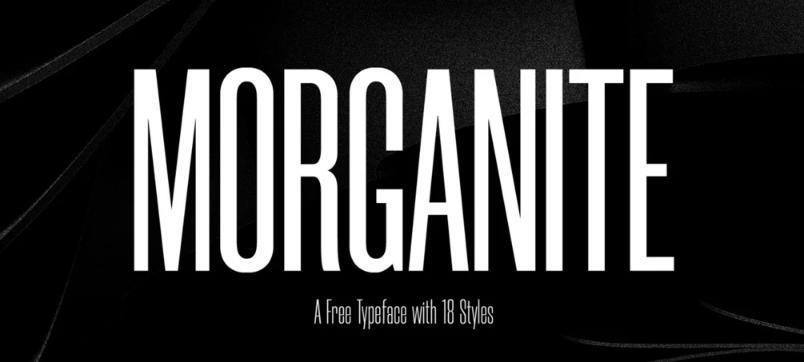
This is our free font of the day post. Morganite is a sleek and condensed sans-serif typeface created by Rajesh Rajput. Released in 2018, this versatile font family includes 18 styles, from Thin to Black, making it a great fit for various design projects like posters, flyers, and magazines. Best of all, it’s free for both personal and commercial use. With its condensed design, Morganite maximizes space without sacrificing readability, making it perfect for headlines…